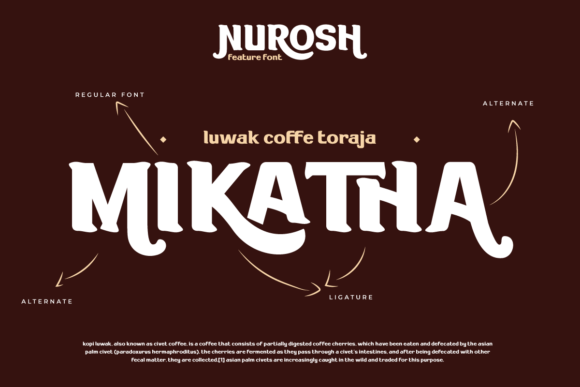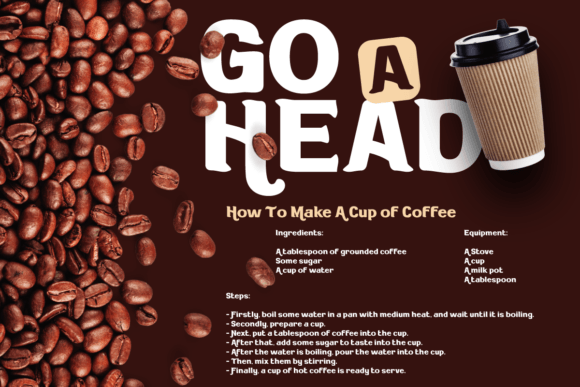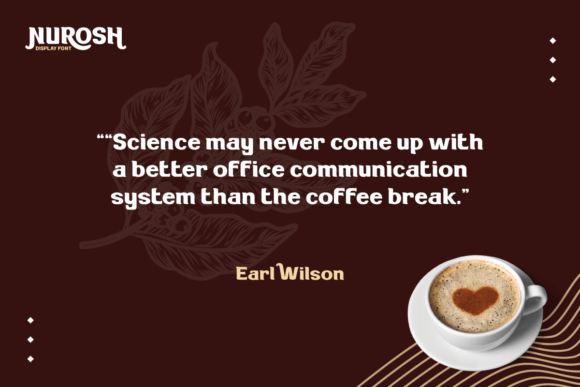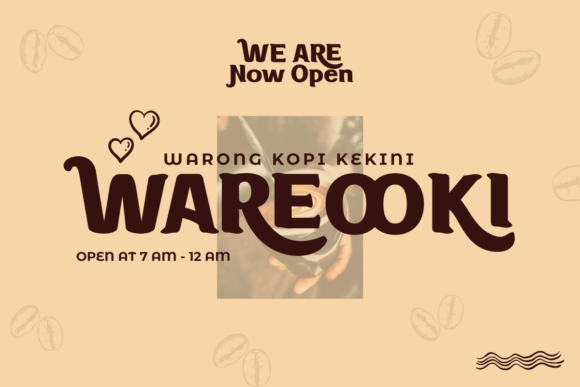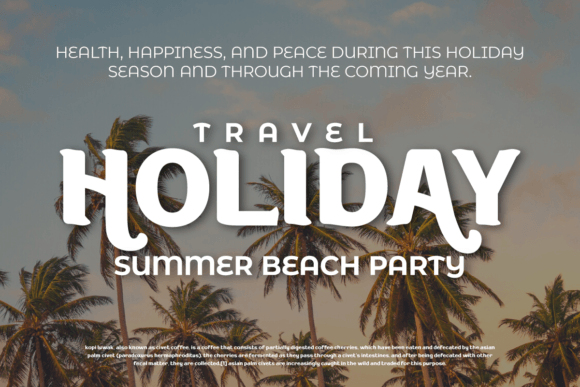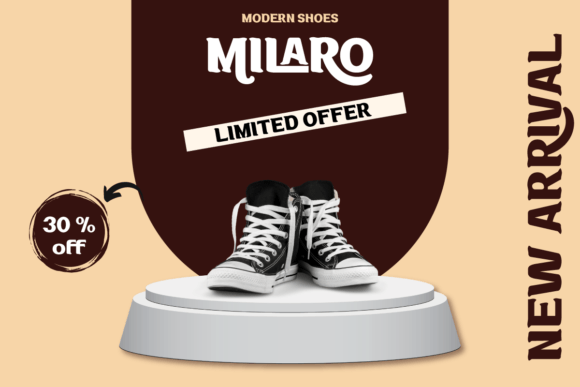
Introduction to Nurosh Font
Introducing Nurosh, a captivating and versatile typeface that will instantly grab the attention of your audience.
With its unique and eye-catching design, Nurosh is the perfect choice for those seeking a distinctive and attention-grabbing typography solution .
Key Features of Nurosh Font
Why Choose Nurosh Font?
Nurosh Font offers exceptional quality and versatility, making it a valuable addition to your design toolkit. Whether you’re creating for personal projects or commercial use, Nurosh Font delivers professional results.